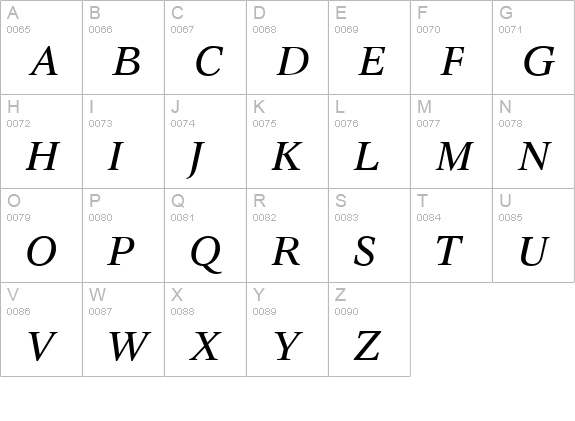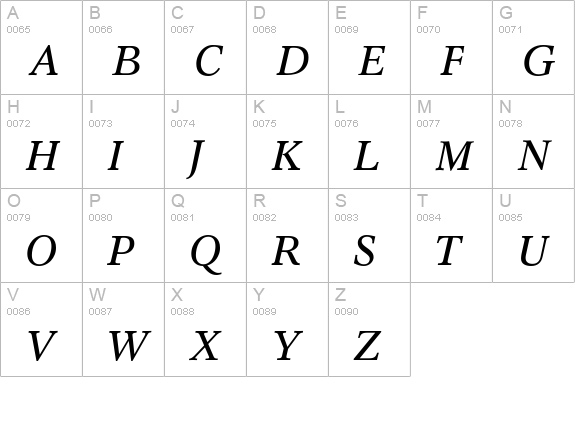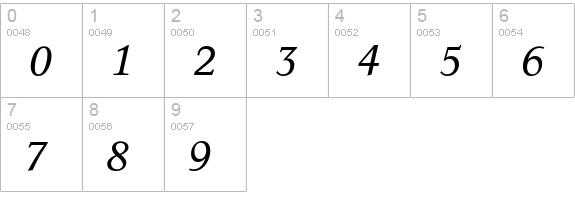
12 Concorde** Italic 13319 Font Details
12 Concorde** Italic 13319 is a distinctive, italic variant in the 12 typeface family \xE2\x80\x94 well suited to design and typography projects.
Introducing 12 Concorde** Italic 13319 font, a sleek and modern typeface that exudes sophistication and elegance. Its unique design features sharp angles and clean lines, making it perfect for adding a touch of contemporary flair to any project. Whether you're designing a logo, creating a website, or crafting a marketing campaign, this font is sure to make a statement. What's even better is that 12 Concorde** Italic 13319 font is freely available to download at FontsMarket.com. So you can easily access this stylish font and enhance your designs without any cost. Don't miss out on the opportunity to elevate your projects with this versatile and eye-catching typeface. Download 12 Concorde** Italic 13319 font today and let your creativity shine!